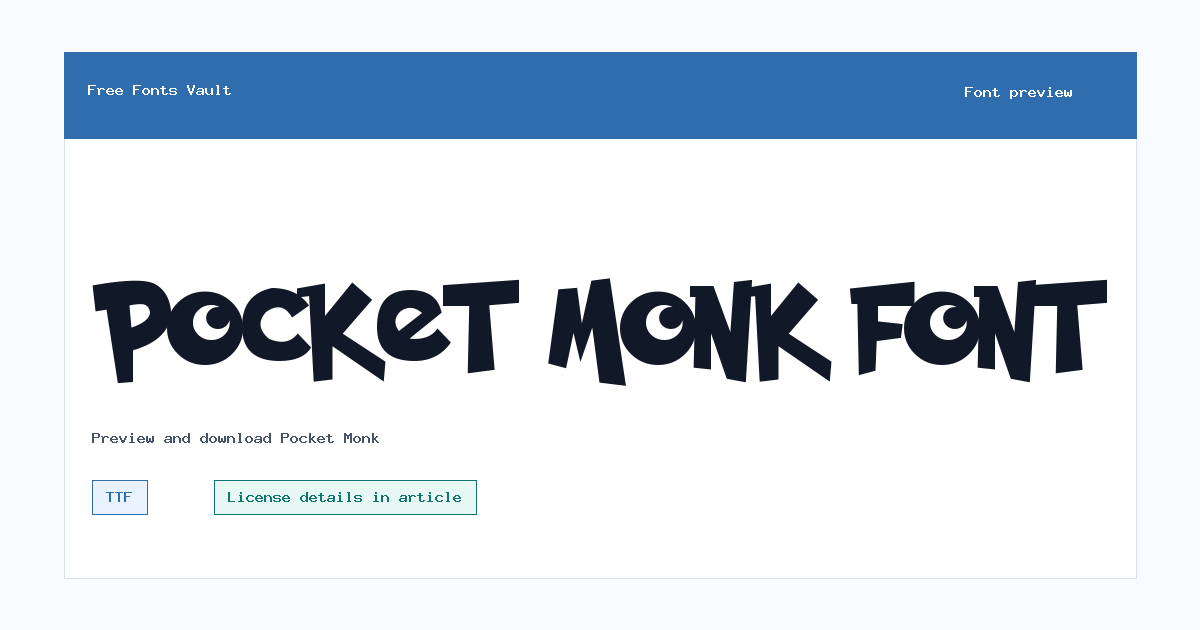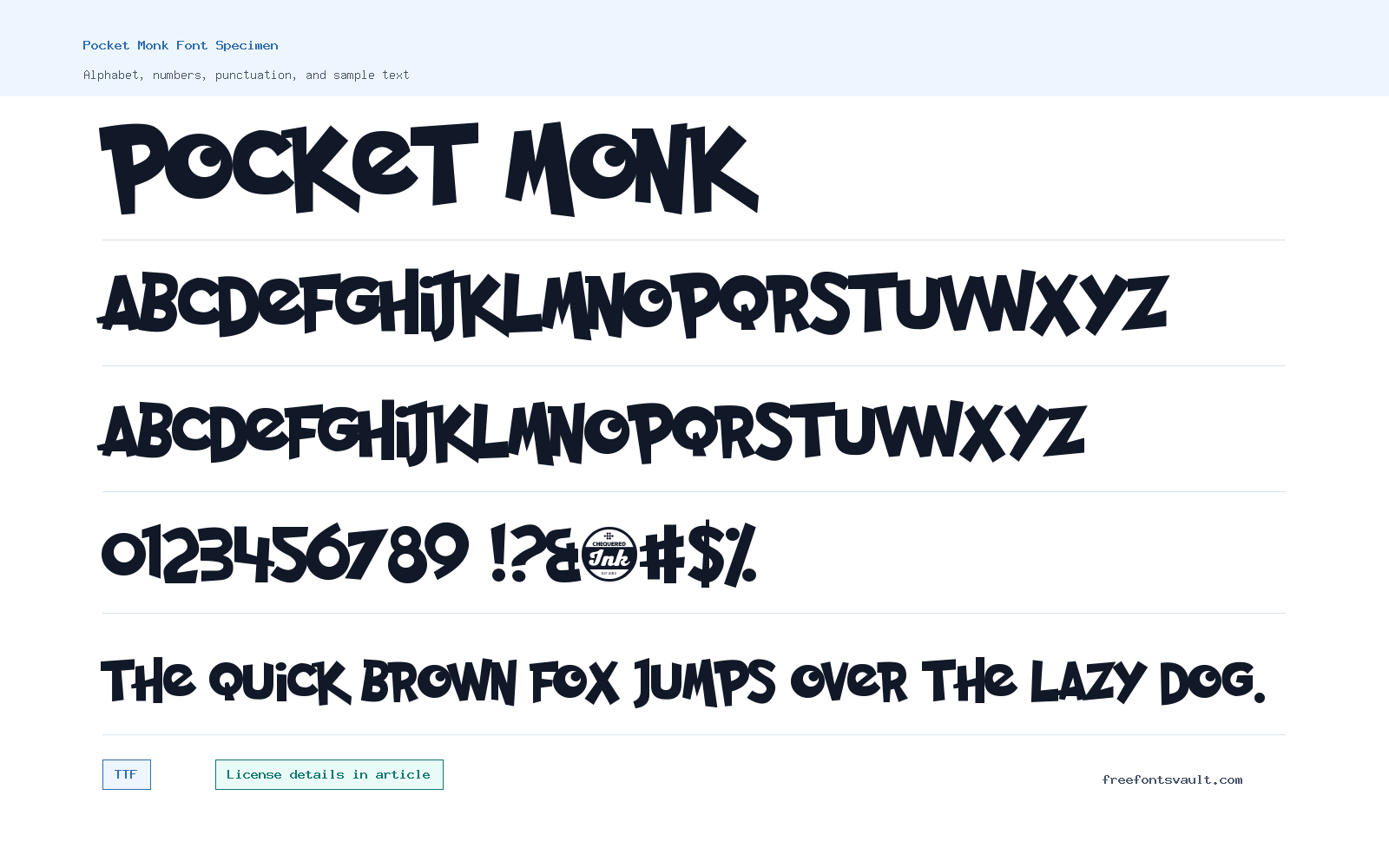
Pocket Monk
Pocket Monk font.
Pocket Monk is a playful display font with rounded cartoon energy, built for short words, punchy titles, and fun graphic lettering rather than long reading text.
About Pocket Monk
Pocket Monk works best when you want a bright, game-like headline style without using a formal text face. Its letterforms have a soft, animated feel that suits stickers, thumbnails, party graphics, fan-style artwork, labels, and casual poster titles. Because the design is decorative, it has the most impact in short phrases where each letter has room to stand out.
Use the preview box to test the exact words you plan to design with, especially names, mixed-case titles, numbers, and punctuation. Display fonts can change character a lot depending on the text, so check spacing at the size you need before downloading. For cleaner layouts, pair Pocket Monk with a plain sans serif for body copy, captions, menus, or any information that needs quick reading.
- Playful cartoon-style display lettering for short titles and graphic text
- Best used at larger sizes where the rounded shapes stay clear
- Works well with simple supporting fonts for readable body text
- Sticker text and playful labels
- Fan-style graphics and casual posters
- Gaming-inspired thumbnails or banners
- Short headlines, names, and logo-style mockups
- Kids’ party designs and fun printable titles
Keep Pocket Monk for display use. Try it in short words, add generous spacing around the text, and avoid using it for paragraphs, small captions, or dense interface text. If a design needs both personality and readability, use Pocket Monk for the main title and a neutral sans serif for the supporting words.
What kind of font is Pocket Monk?
Pocket Monk is a cartoon-style display font made for short, playful lettering rather than long text.
What should I pair with Pocket Monk?
Pair it with a simple sans serif for descriptions, captions, buttons, or other small text so the layout stays easy to read.